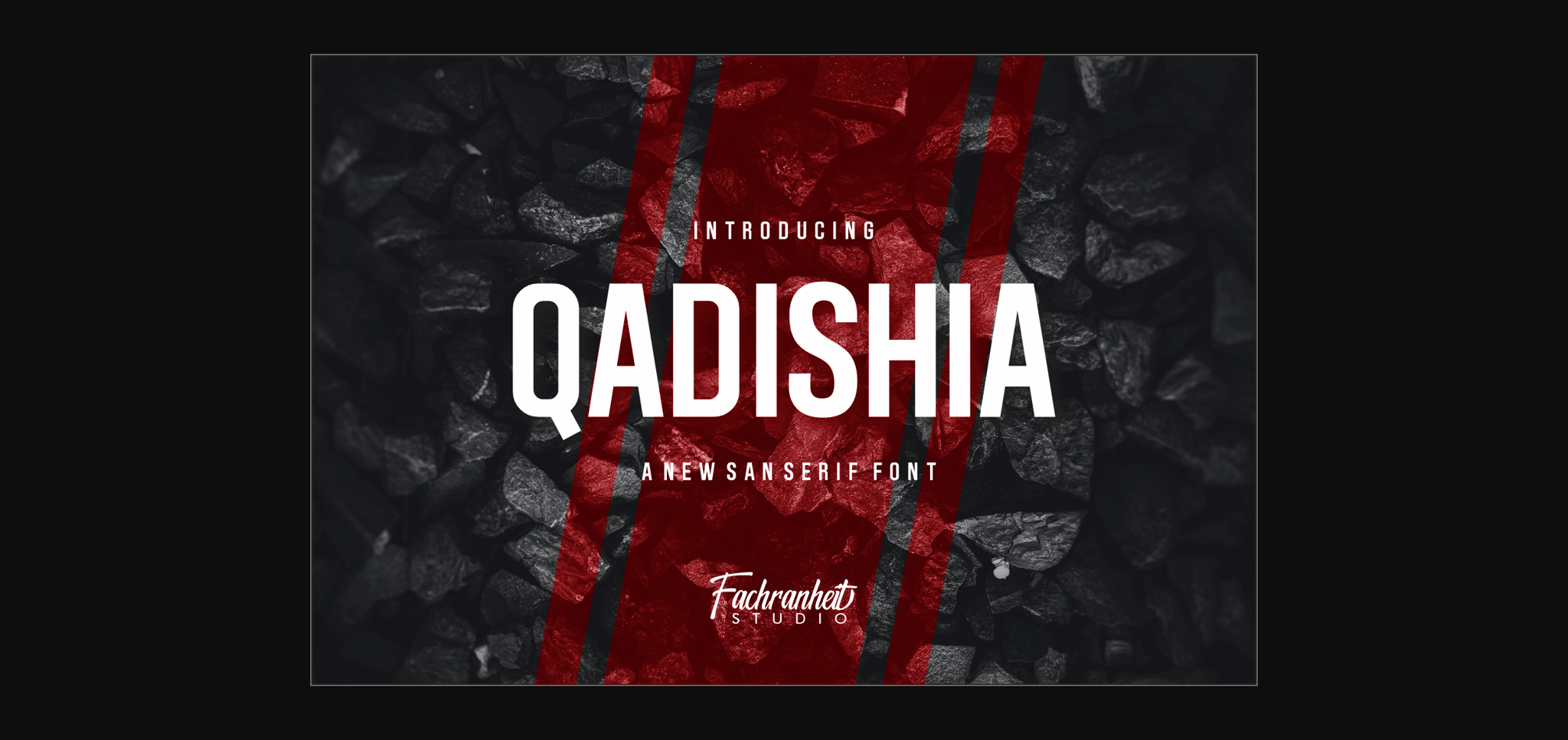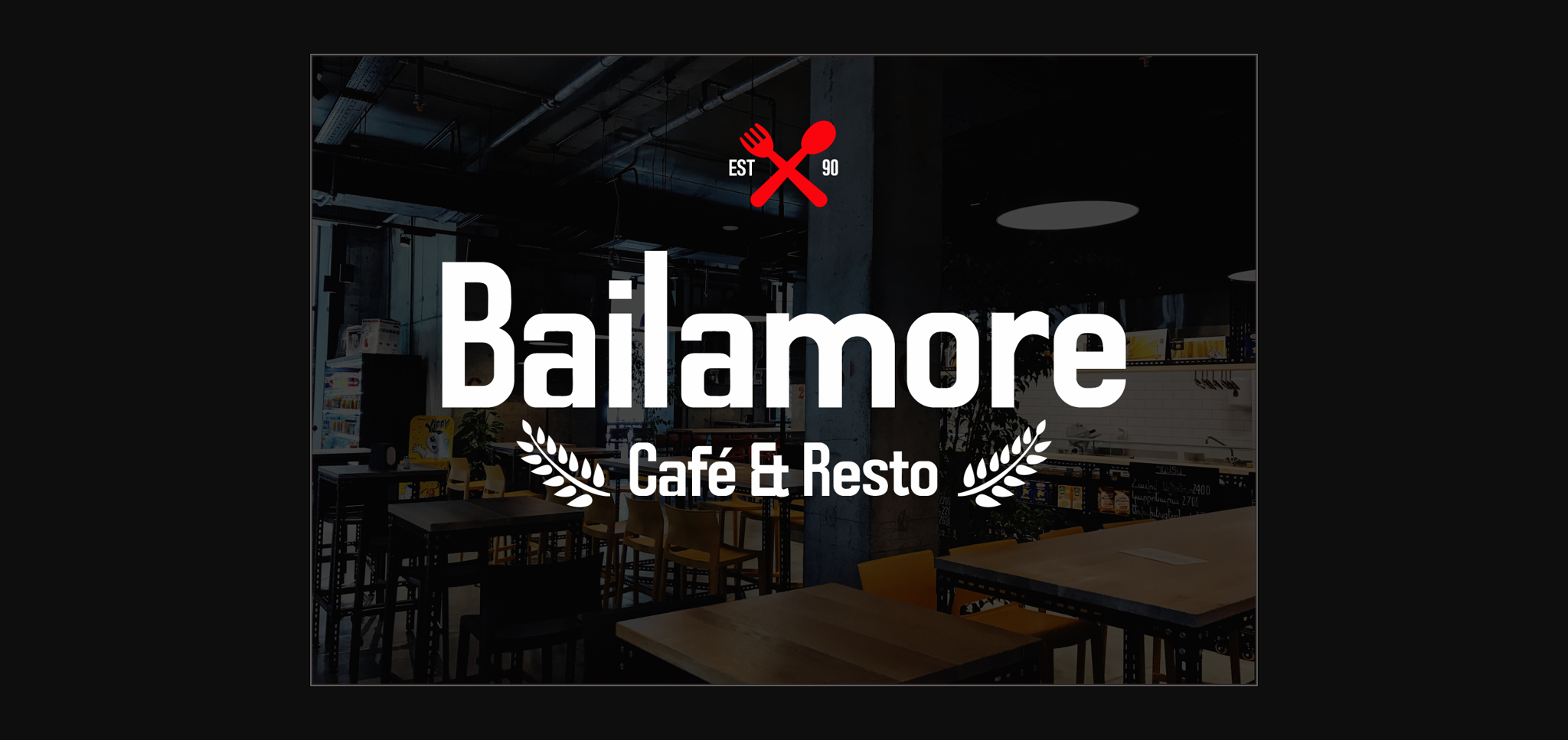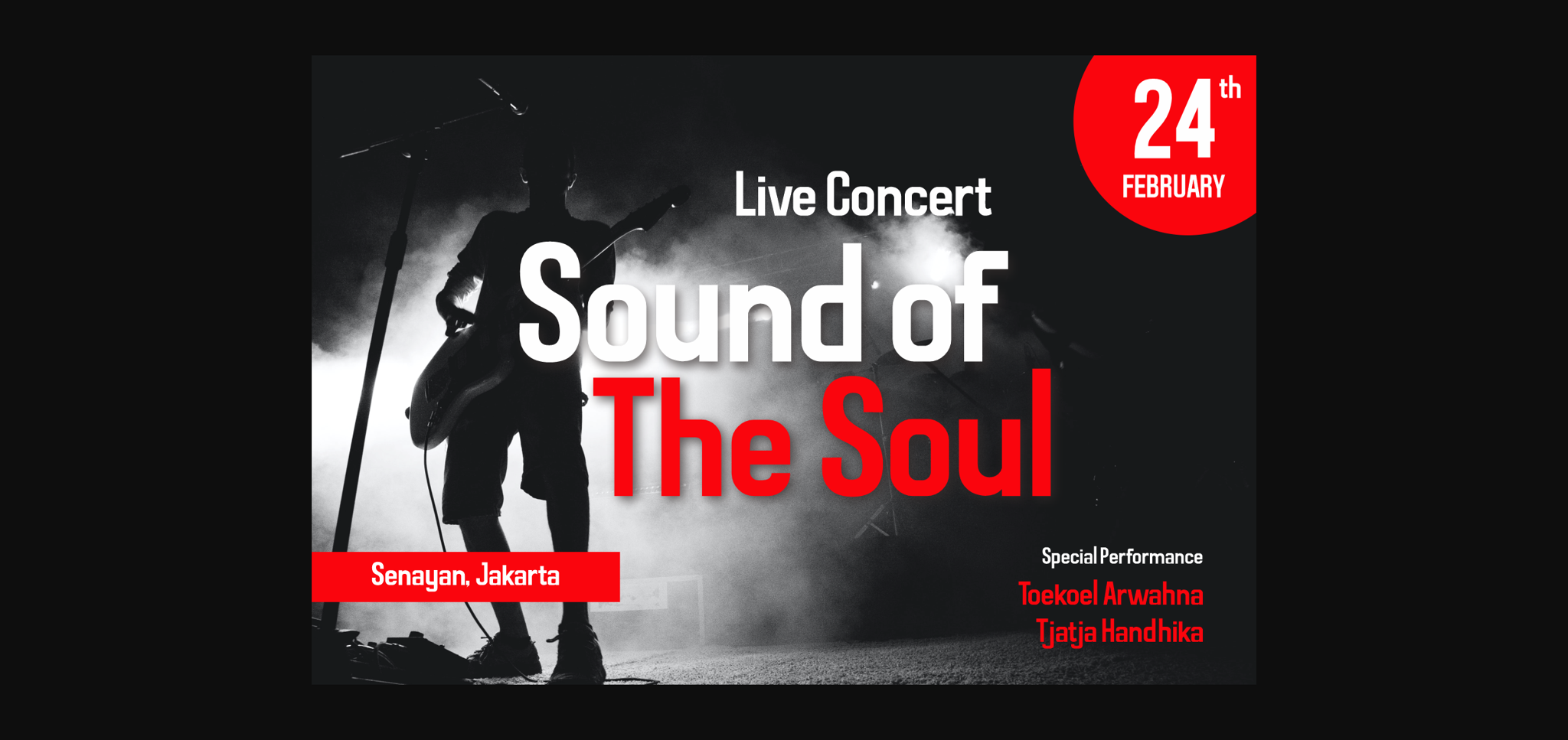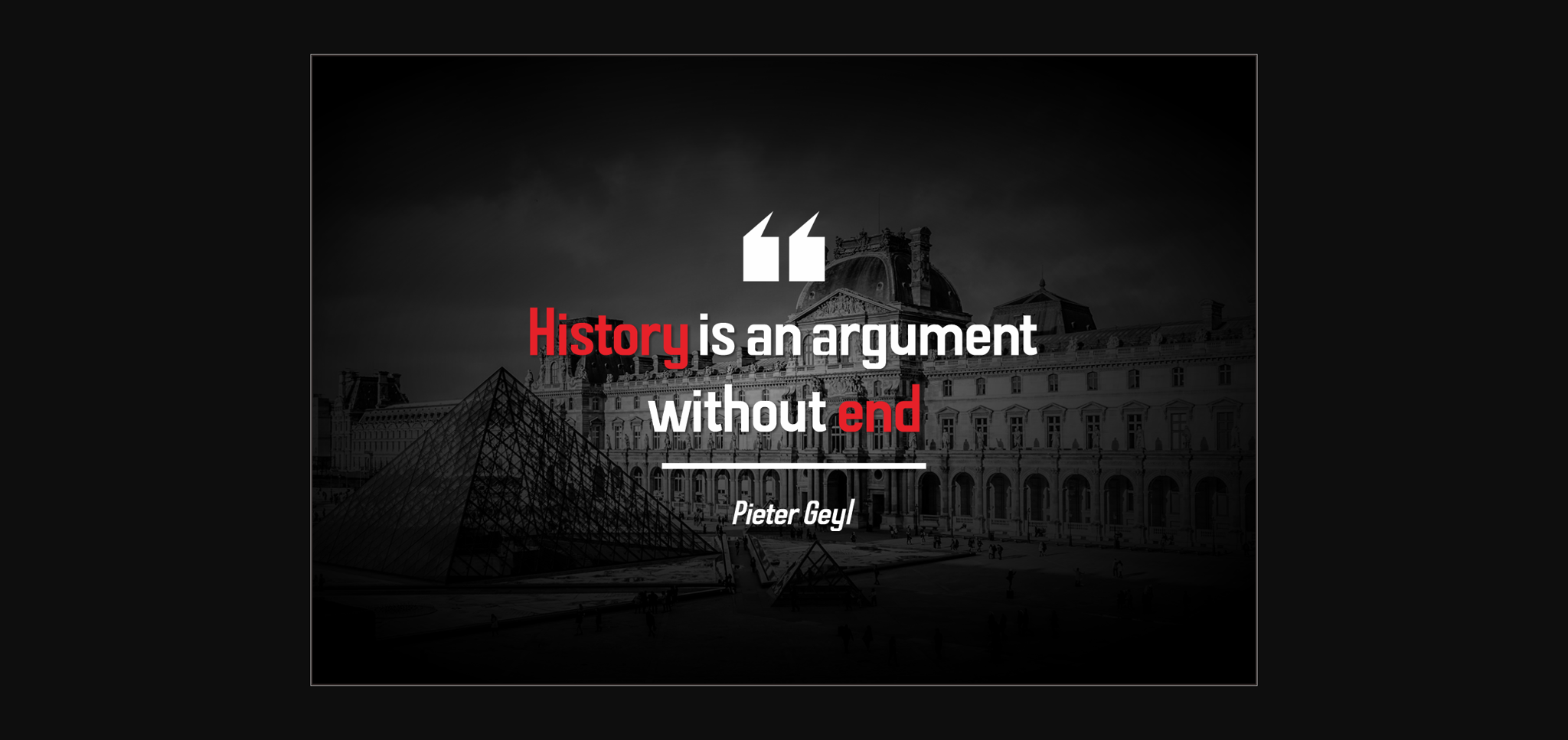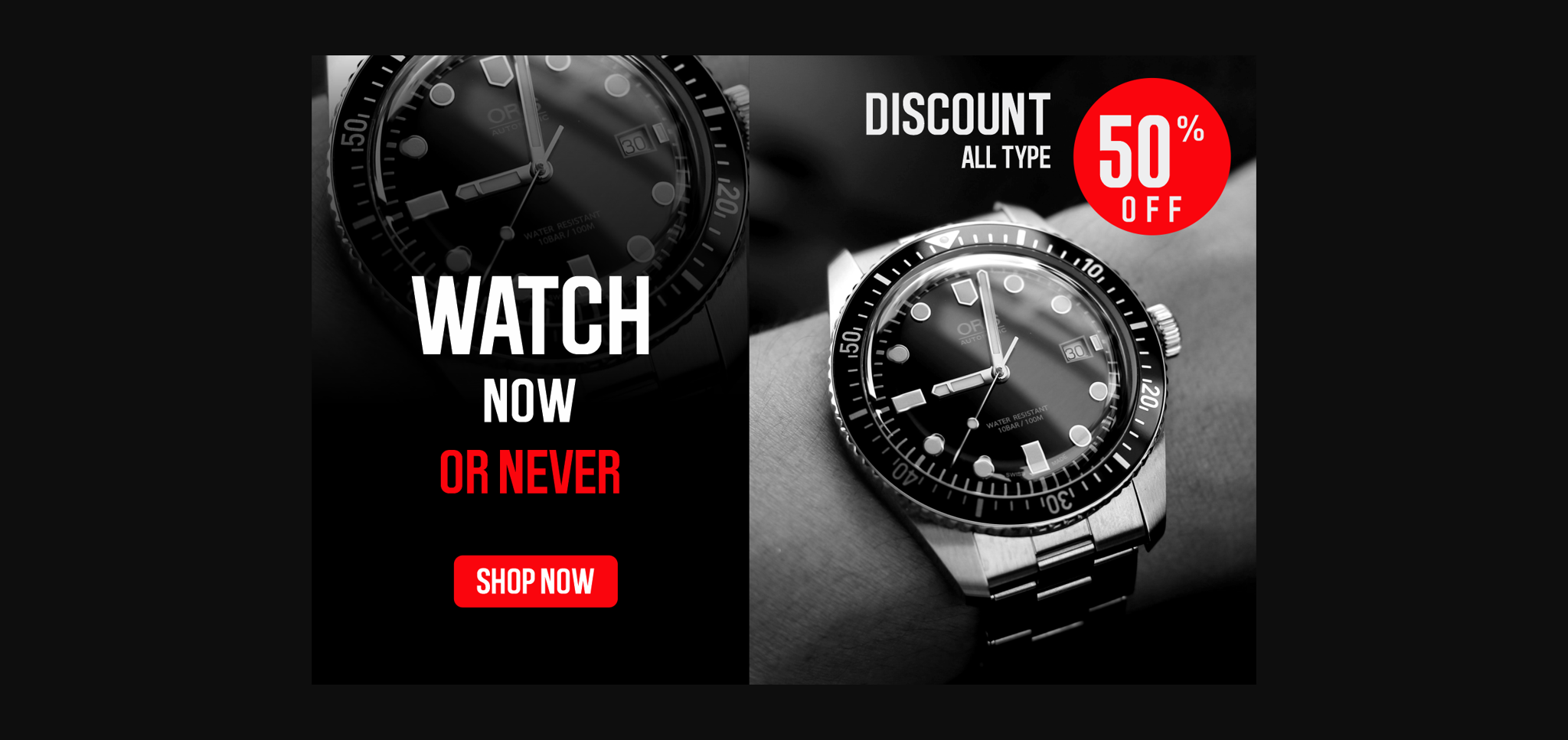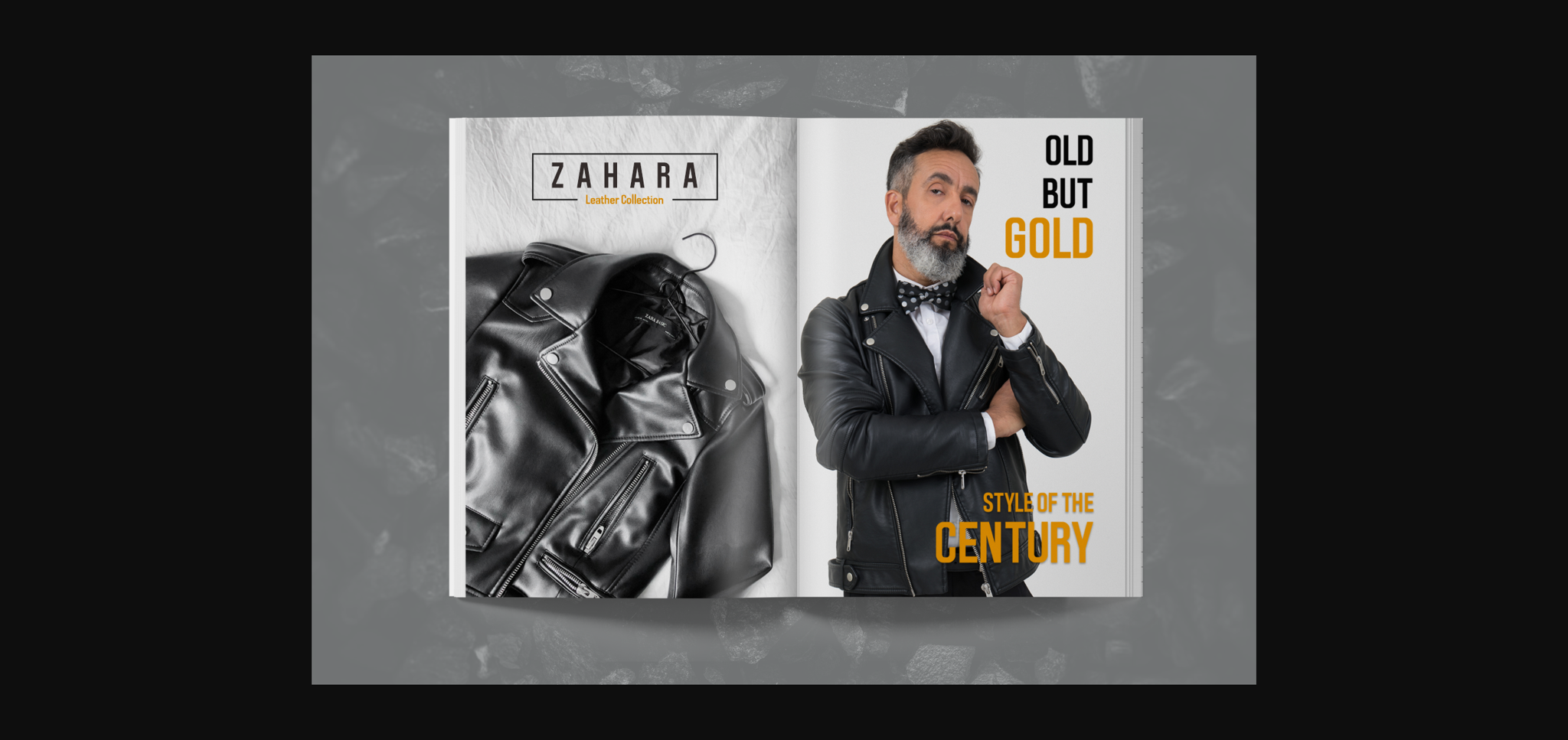
Qadishia Font
About Qadishia Font
Qadishia is a modern and bold sans-serif font. Use it for movie posters, flyers, headline, logos, packaging and much more!